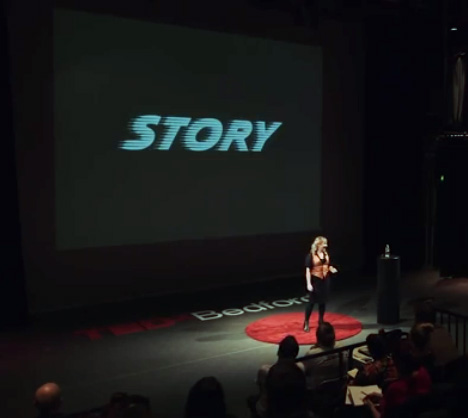
TEDxBedford Sarah Hyndman
Wake up and smell the fonts
Sarah shares with us a story of type and invites us to consider our emotional response to the printed word. Each font/typeface has a personality that influences our interpretation of the words we read by evoking our emotions and setting the scene. We all understand this instinctively but it happens on a subconscious level. Sarah shows us that conscious awareness of the emotional life of fonts can be entertaining and ultimately give us more control over the decisions we make.
We are all type consumers and typefaces, or fonts, play a vital role in our everyday lives. They help us to navigate, they help us to make choices, they help us to shop, they keep us safe and sometimes they even play a game of sleight of hand. It is hugely important as the world involves that all of those involved in the future communication and technology understand the power of type.
Just because I’m talking ‘typography’ there’s no need for me to be all serious and ‘Times New Roman’ about it.
“A brilliant #type talk. Loved your transformation from Times New Roman. True show it not say it.” Sandra Dartnell @mdh_sandra
Typography is storytelling and in the corporate world these are powerful brand stories with influence. As a graphic designer I’ve started to question the responsibility of my role as the storyteller.
“If fonts tell stories then we must be conscious about the stories we choose to tell” @TEDxBedford
Fonts turn words into stories, to demonstrate this Sarah shows the story of Star Wars in 15 fonts.
Typefaces communicate with our subconscious, leaving our conscious brain to read what the words are actually saying, this is why we sometimes think we are not aware of fonts.
“You would have loved @TEDxBedford Sarah Hyndman shows how type can alter experiences” @mdh_sandra
VAG rounded, Clarendon bold condensed, Tekton, Trajan, Impact, Engravers Gothic, Agincourt, Didot, Aesthetique, Times New Roman, Klute.
Star Wars in 15 fonts: Blackmoor, Orbit, Klute, Pneuma, Data Seventy, Chromium One, Bertram, Buffalo Gal, Slipstream, Shatter, Black Boton, Helvetica bold compressed, Forest Shaded, Klute, Creepy, F2FShpeetz, BangCom.